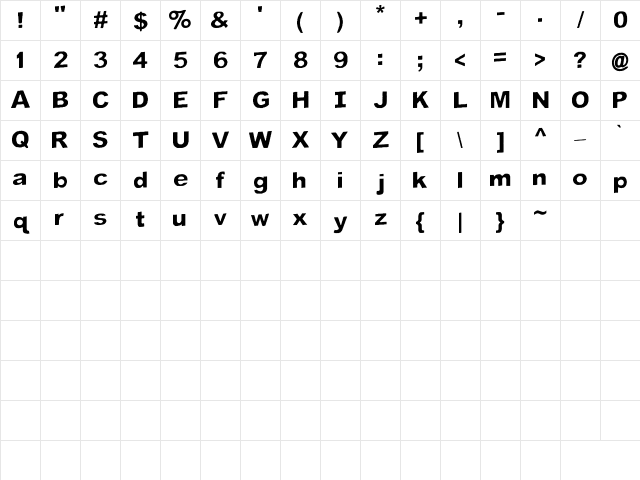
Flip the Switch Regular
Design Context for Flip the Switch
Flip the Switch is a composed and adaptable typeface that performs quietly and consistently across a wide range of design contexts.
Pro Tip: Use Flip the Switch in both headline and body roles to test its range before committing to a single application.